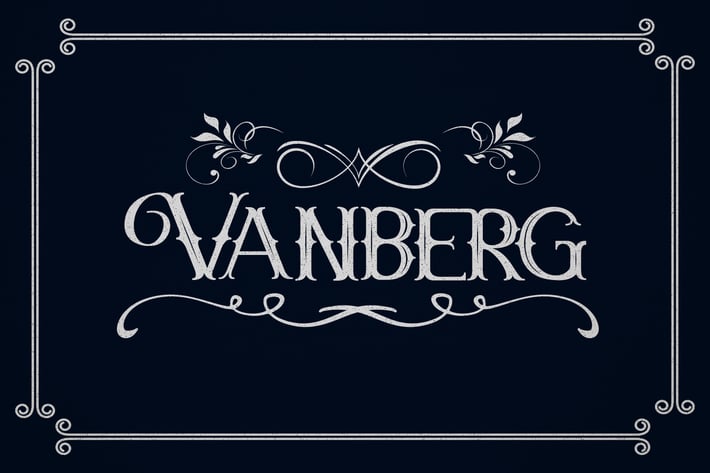
Vanberg Blackletter Font
Vanberg Decorative Display Font Blackletter
Vanberg Vintage is a handmade Modern Victorian handlettering, which is combining modern and classic typography with some awesome alternates. Yes we back to early 1800s, bring classic touch on this decade.